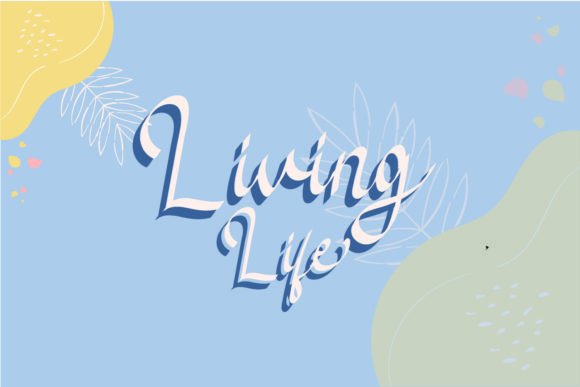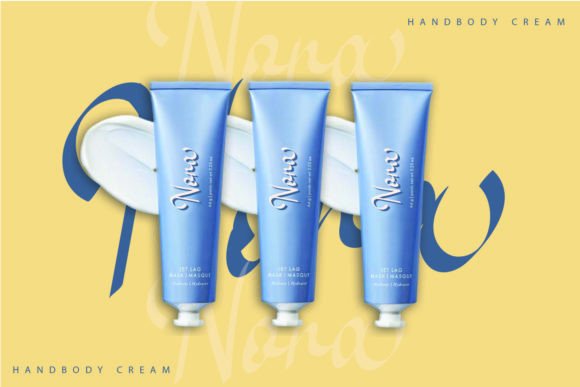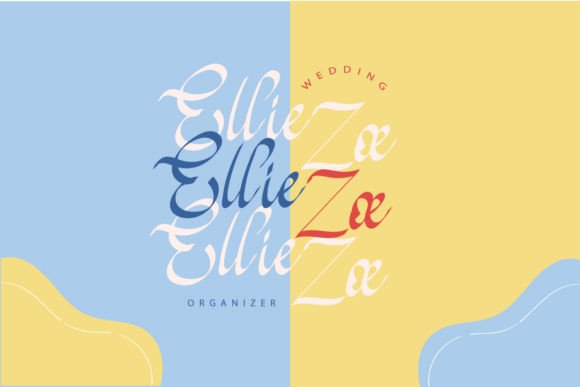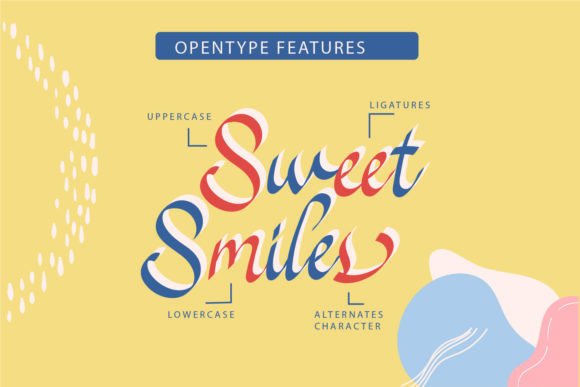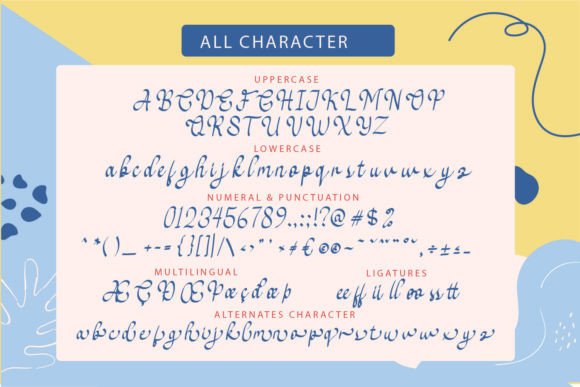
Introduction to Pelsoona Font
Have you ever been stuck on a creative project, searching for the perfect font to bring your vision to life? I know I have. It’s that moment of frustration when you scroll through endless options, hoping to stumble upon the one that makes your design pop. That’s when I discovered the Pelsoona Font, a modern and cool handwritten script font that changed the game for me.
This high-quality design resource is a treasure trove of creative possibilities, offering a distinct and timeless style that’s perfect for a wide range of projects. With its free download and transparent background, you can easily integrate it into your design workflow, making it a valuable addition to any designer’s toolkit.
Key Features of Pelsoona Font
• Pelsoona Font offers a high quality design resource for creative projects, available for free download.
• The font features a unique and modern design, perfect for use on transparent backgrounds or with a variety of background images.
• The font includes a range of characters, including uppercase and lowercase letters, numbers, and punctuation marks.
• The font is designed to be highly legible, even at small font sizes, making it a great choice for use in body text or headlines.
• Pelsoona Font is a versatile design resource that can be used in a variety of creative projects, from digital designs to print materials.
Honest Review: Pelsoona Font
I recently had the chance to work with the Pelsoona Font, and I must say it’s a fantastic addition to any designer’s toolkit. This free download offers a high quality, modern design that’s perfect for a wide range of creative projects.
One of the standout features of the Pelsoona Font is its versatility. The font’s sleek, minimalist aesthetic makes it suitable for both digital and print designs, from logos and branding to web pages and marketing materials.
Here are some of the things that work well with the Pelsoona Font:
• ✨ High-quality design that’s perfect for professional projects
• ✨ Versatile font that works well in both digital and print designs
• ✨ Transparent background allows for easy customization and editing
• ⚠️ Limited font weights and styles, which may limit its use in certain projects
• ⚠️ May not be suitable for projects that require a more bold or dramatic font
Overall, I’m very impressed with the Pelsoona Font. Its high-quality design, versatility, and free download make it a valuable resource for any designer. While it may have some limitations, it’s definitely worth checking out for your next creative project.
Pelsoona Font
Tips for Getting the Most Out of Pelsoona Font
For the best results, use Pelsoona Font on a transparent background to create a clean and modern design. You can also experiment with different font sizes and colors to add depth and visual interest to your project.
Pelsoona Font is perfect for creative projects, such as graphic design, digital art, and typography. It’s also a great resource for designers who want a high-quality font for their free download designs.
Alternatives to Pelsoona Font
The Great Vibes Font is a high-quality, elegant script font suitable for a variety of creative projects, including wedding invitations and artistic designs. It’s available for free download and features a transparent background, making it ideal for overlaying on images. When to use: For projects that require a touch of sophistication and elegance. How it compares to Pelsoona Font: Great Vibes Font has a more refined and delicate feel compared to the playful and whimsical nature of Pelsoona Font.
The Alex Brush Font is a beautiful, handwritten font that is perfect for designers looking for a high-quality design resource. It features a range of elegant and creative styles, making it suitable for a variety of projects, from wedding invitations to branding materials. When to use: For projects that require a touch of sophistication and elegance. How it compares to Pelsoona Font: Alex Brush Font has a more refined and elegant feel compared to the playful and whimsical nature of Pelsoona Font.